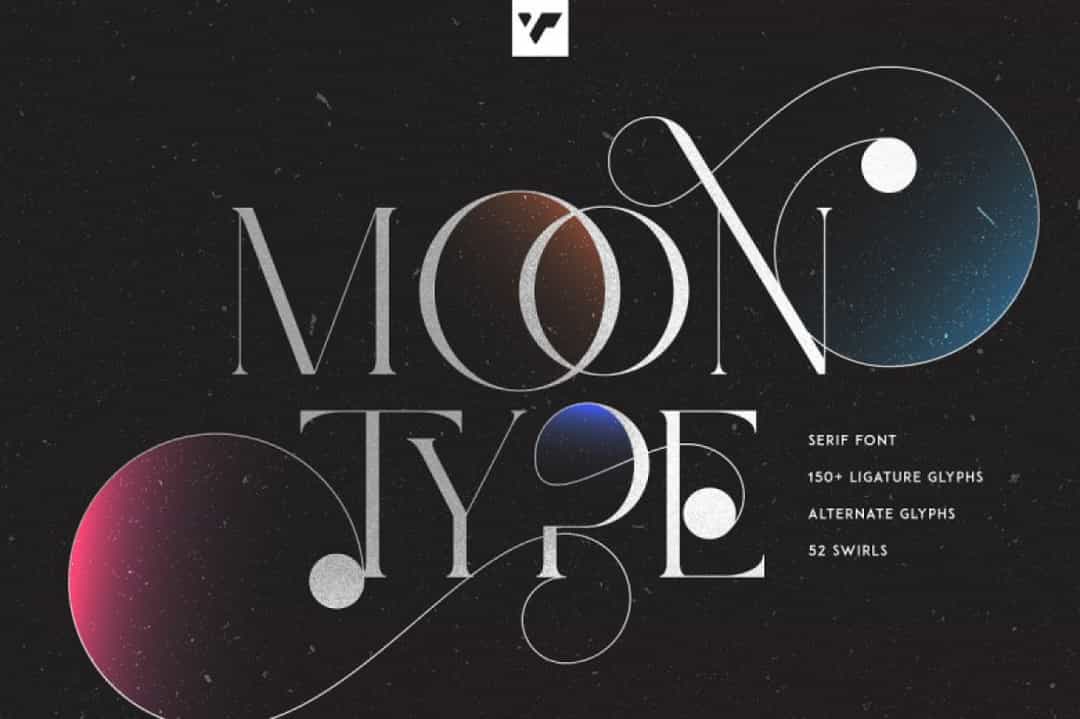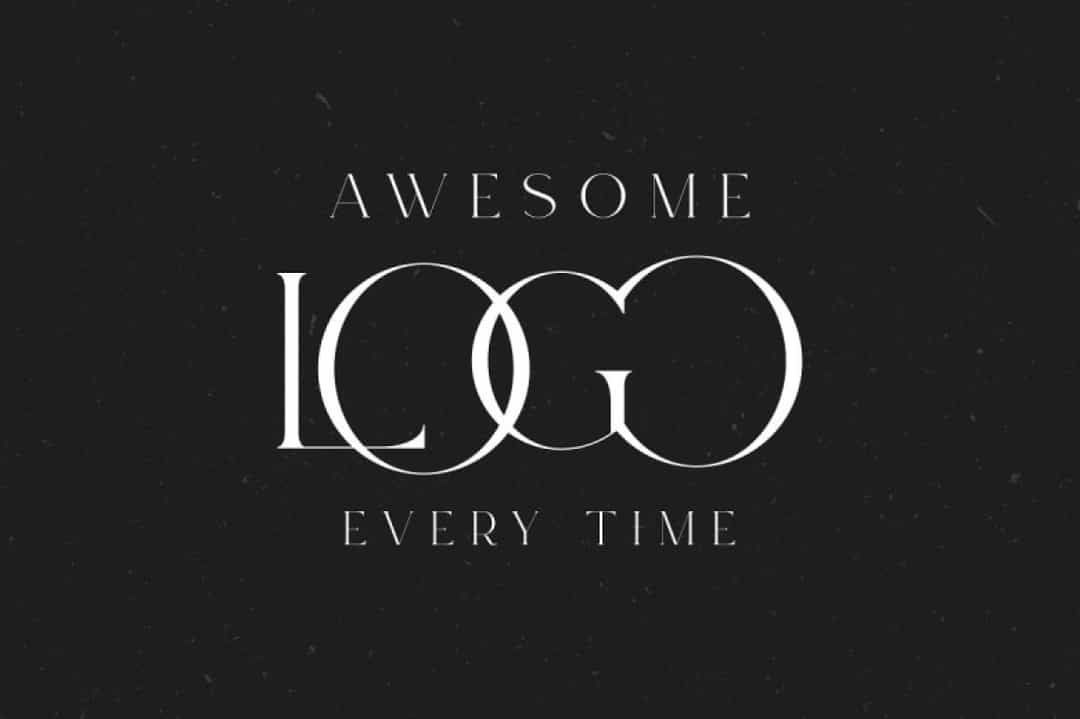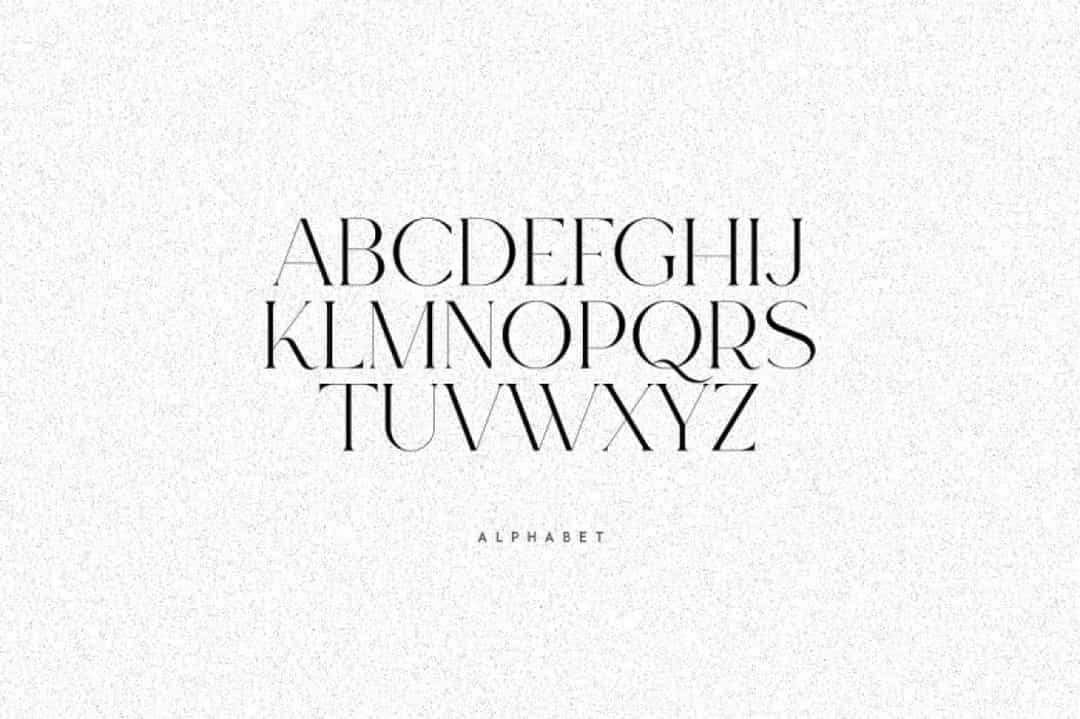
Moon Type font is an elegant and versatile serif logo font that exudes imagination and charm. Boasting over 150 ligature characters and alternative characters, this type of font offers multiple design opportunities that help users create distinctive logos and brands with style.